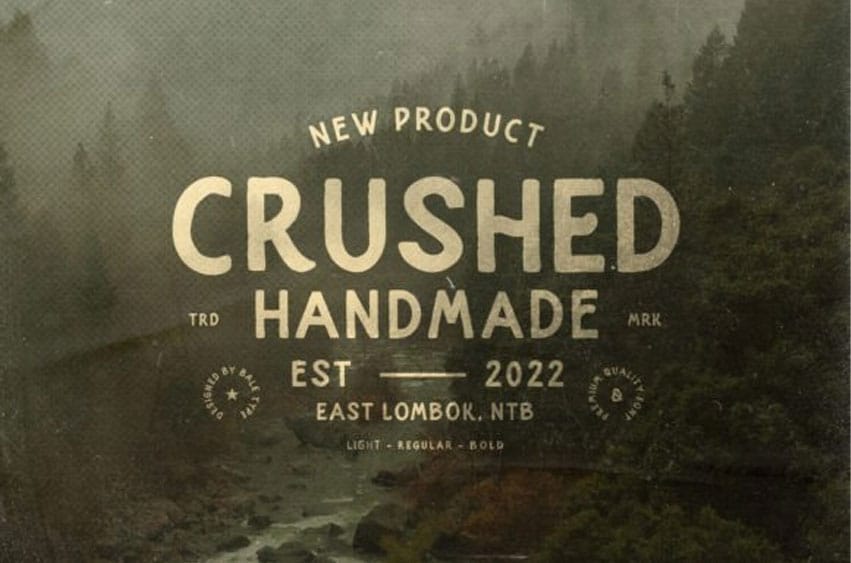
Crushed Font is a handmade sans family with organic and rough feels. This font includes light, regular, and bold.
You can use this font for many purposes, such as logotype, quotes, or any projects that require adventure and outdoor vibes.